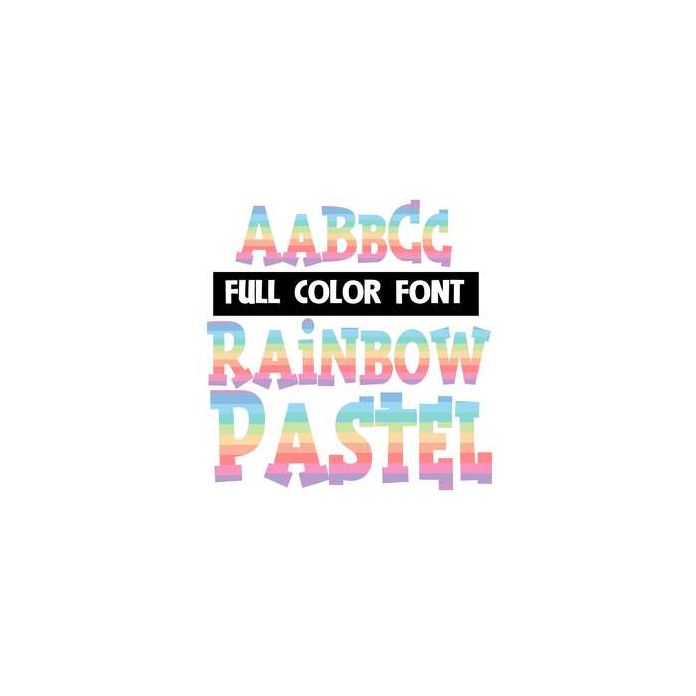
This full-color font features a pastel rainbow alphabet. This font works best for titles, displays, posters and more. Please note color fonts will show as black in non compatible programs. This font type is compatible with Silhouette Studio.